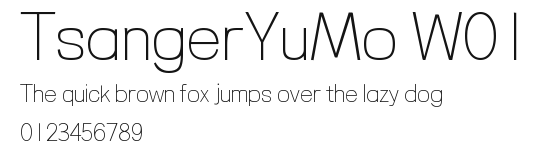
• Font Name: TsangerYuMo W01
• Full Font Name: TsangerYuMo W01
• Designer: Beijing Tsanger Character Technology Co., Ltd.
• Manufacturer: Beijing Tsanger Character Technology Co., Ltd.
About TsangerYuMo W01.ttf
TsangerYuMo W01.ttf is a modern, elegant sans-serif font designed for ultimate readability and visual harmony. Perfect for branding, headlines, web design, and print materials.